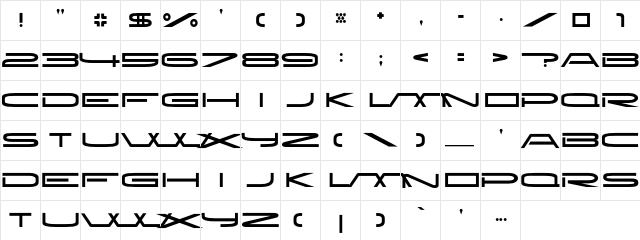
Newbrilliant Regular
Design Context for Newbrilliant Typeface
Newbrilliant is a composed and adaptable typeface that performs quietly and consistently across a wide range of design contexts.